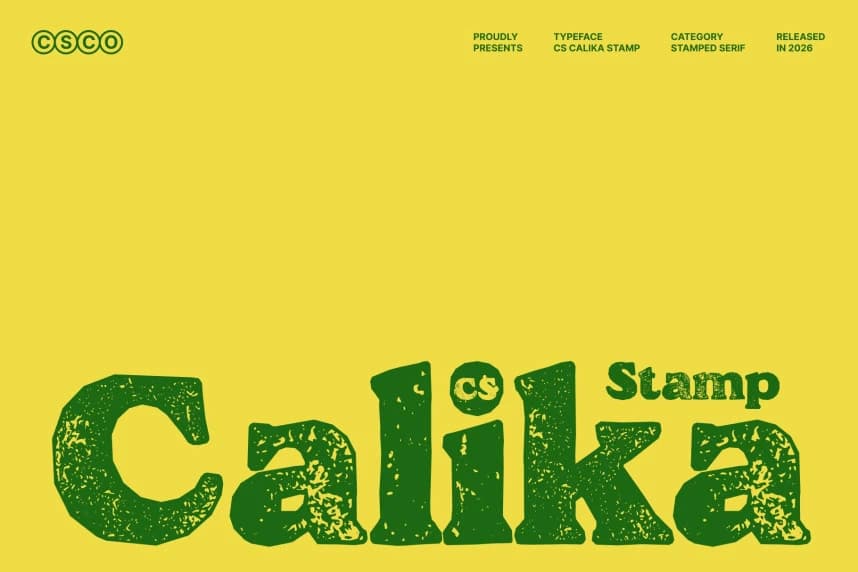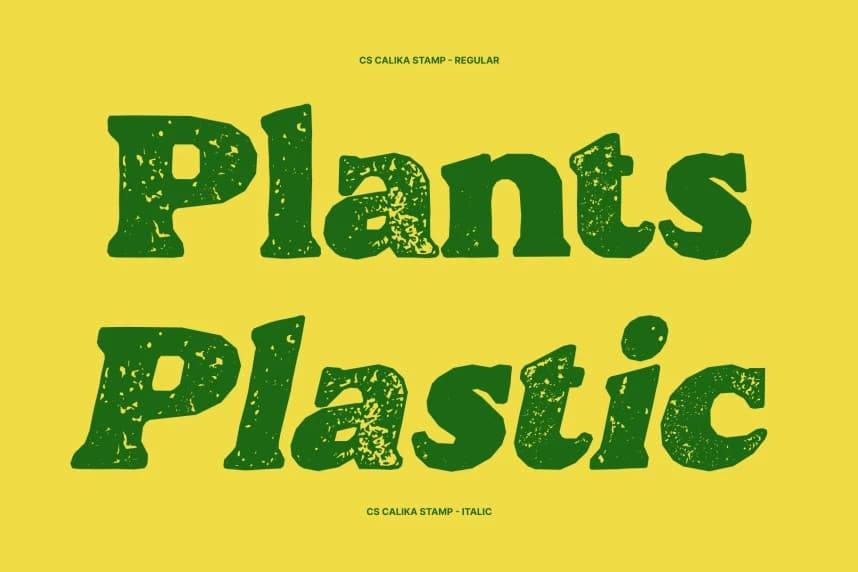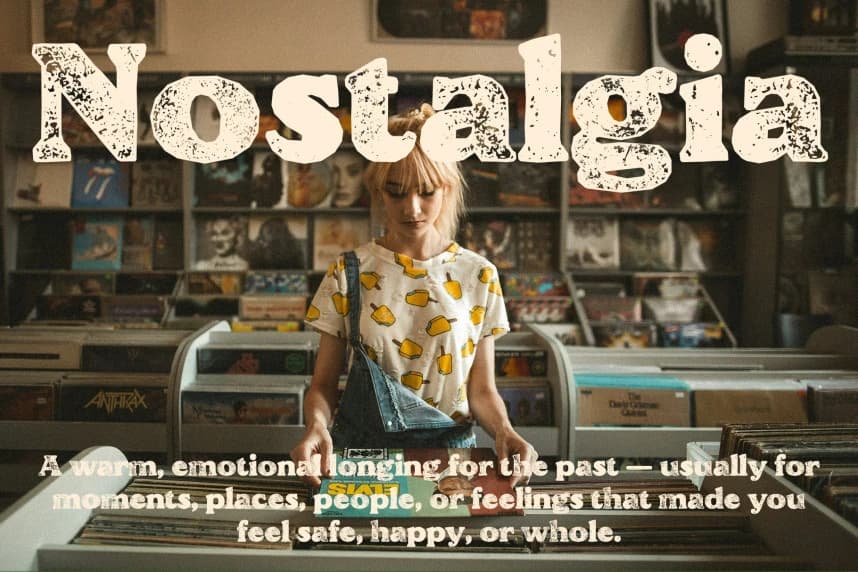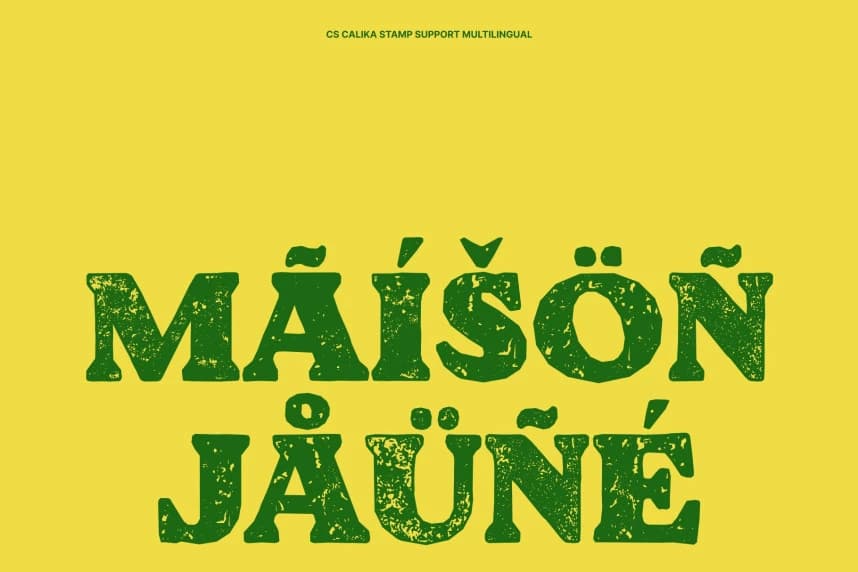
CS Calika Stamp Font
CS Calika Stamp Font – Retro Boldness with Vintage Stamp Character Bold Serif with a 90s Nostalgic Spirit. This is a bold serif font that captures the vibrant energy of 1990s design while introducing a distinctive vintage stamp effect.